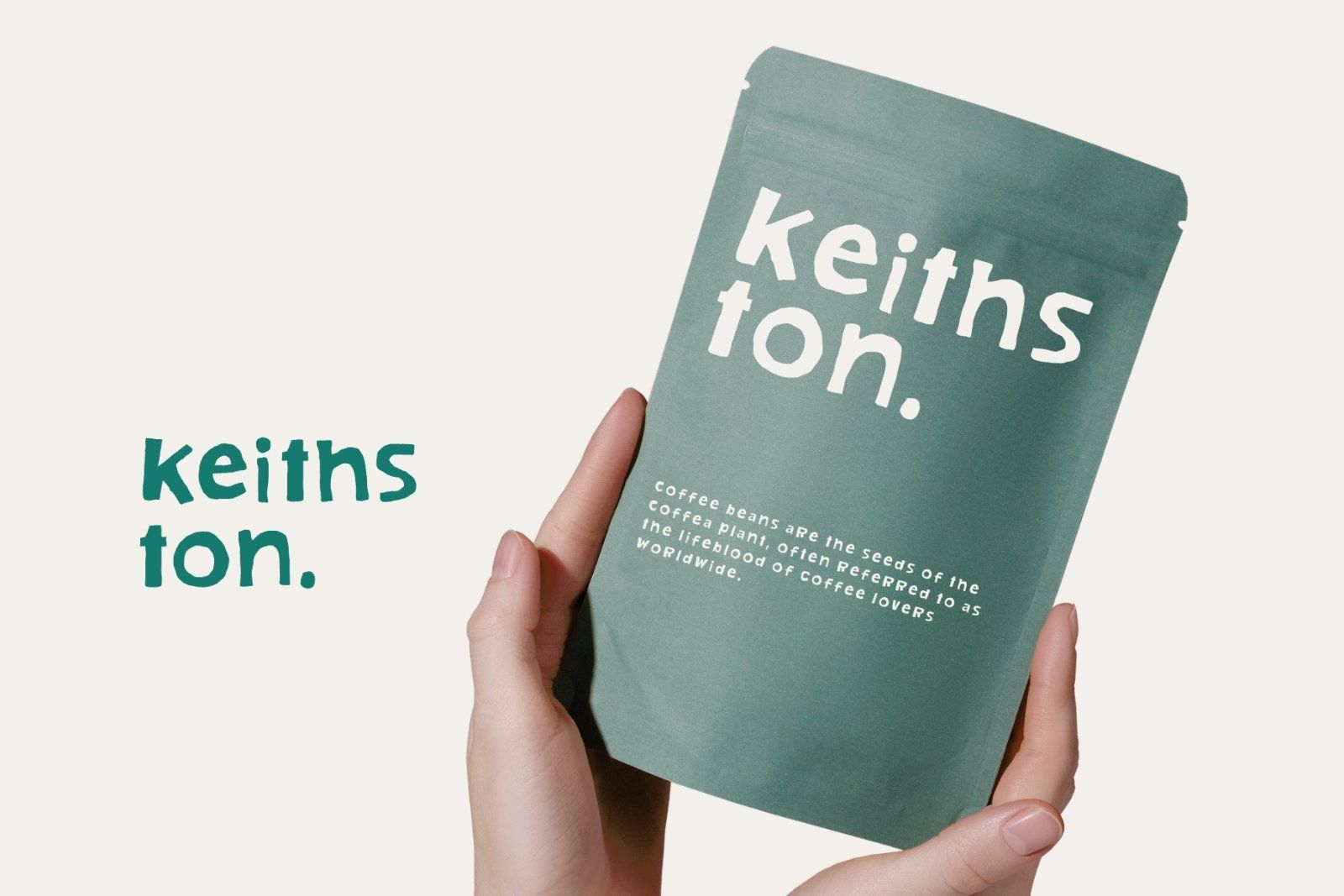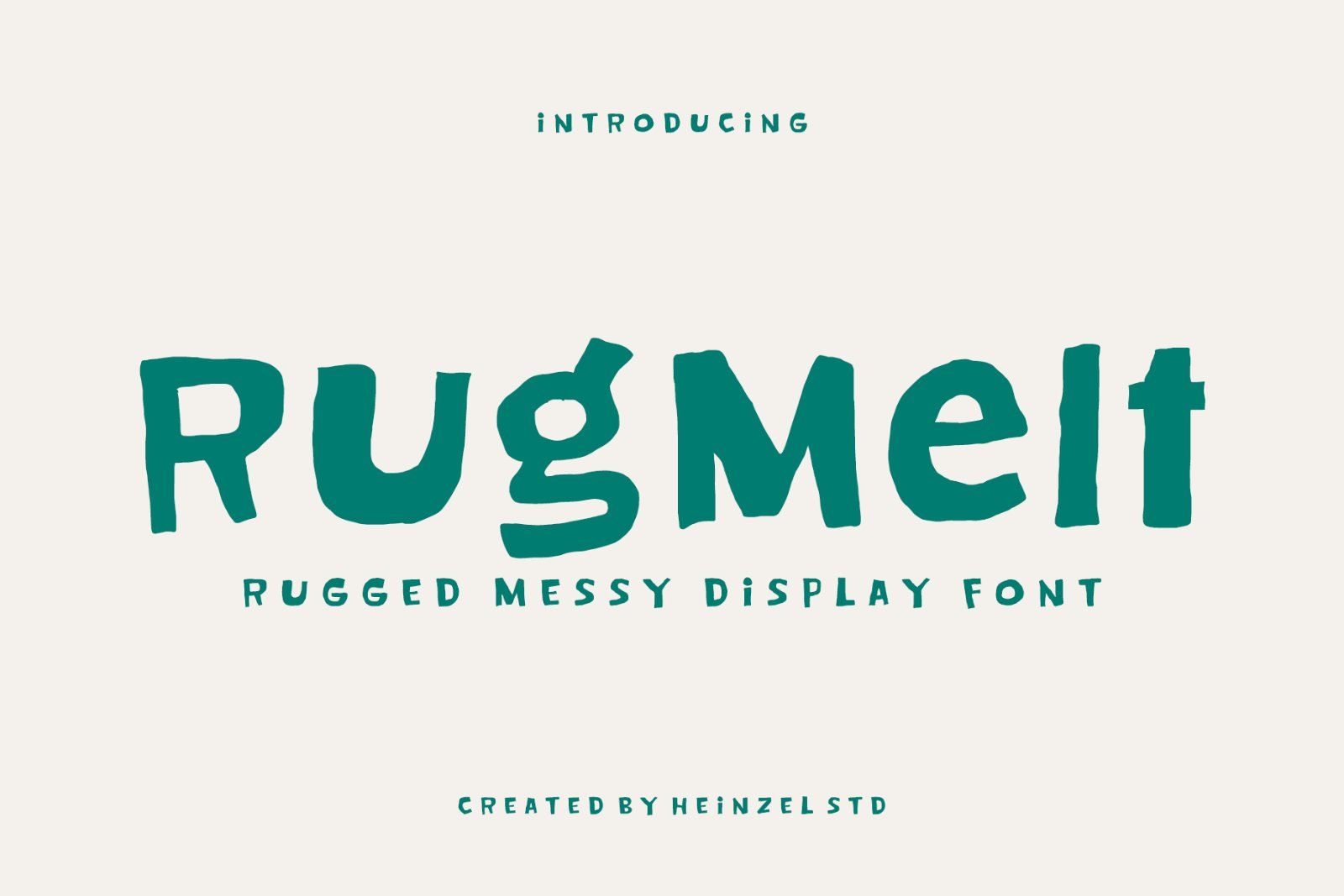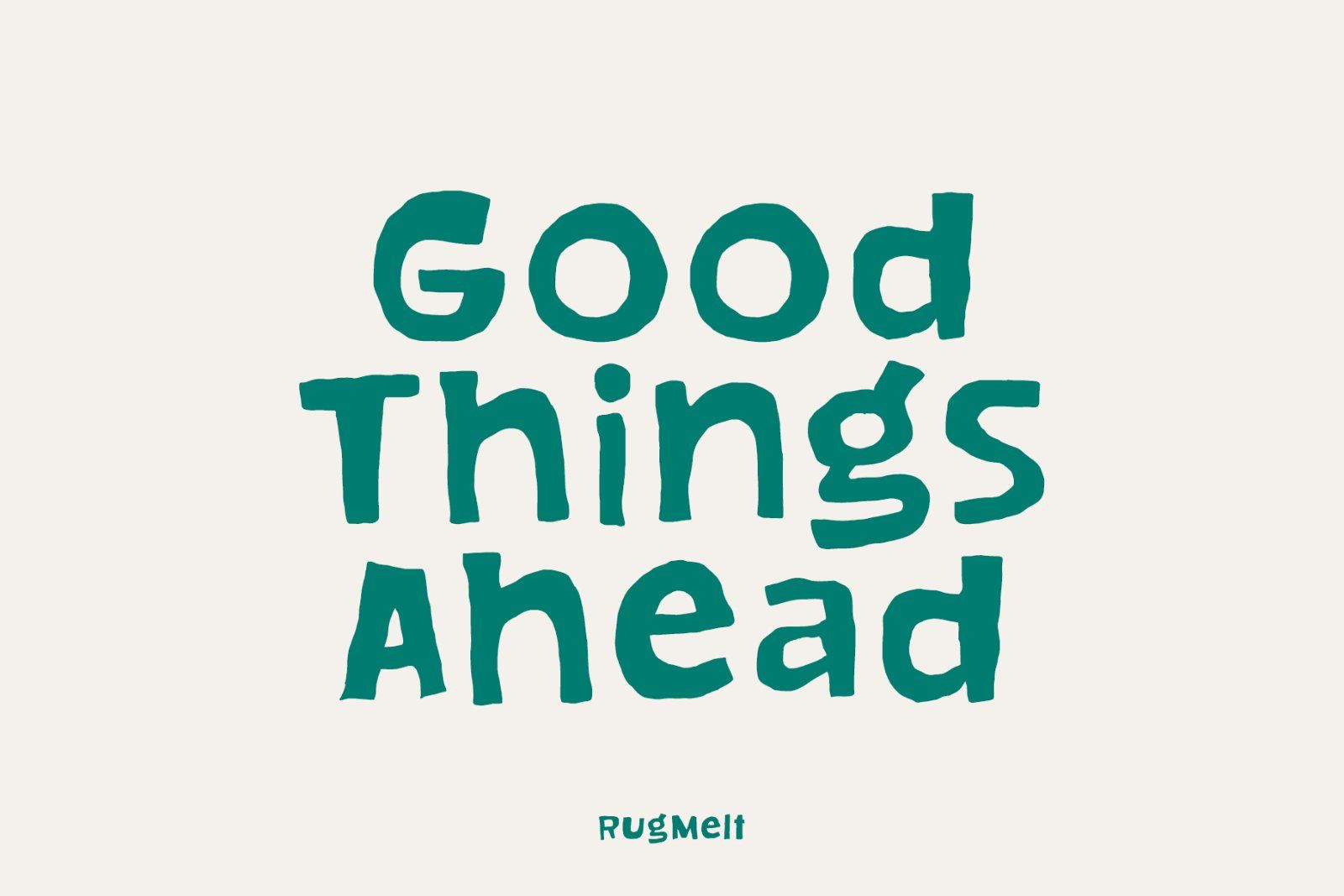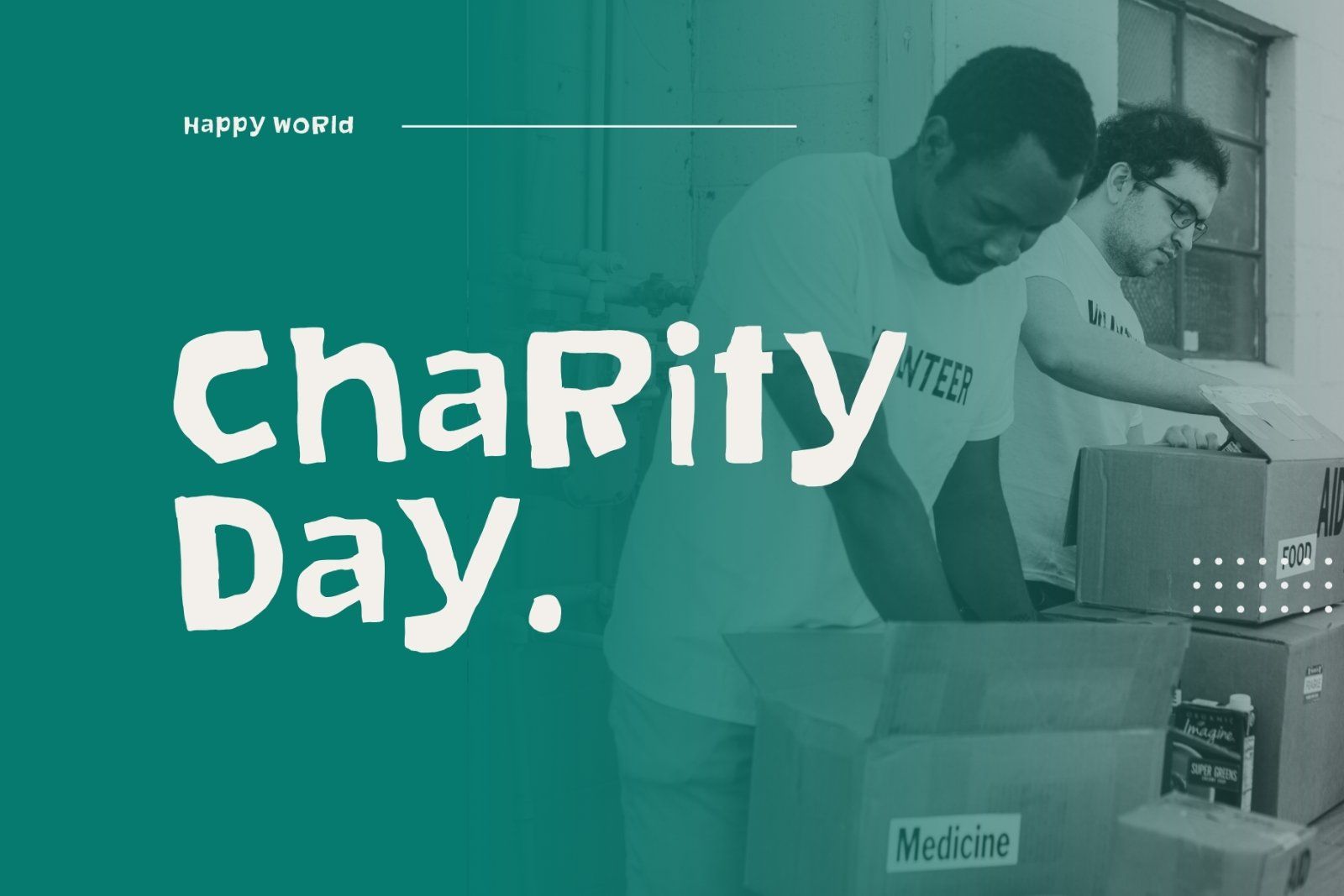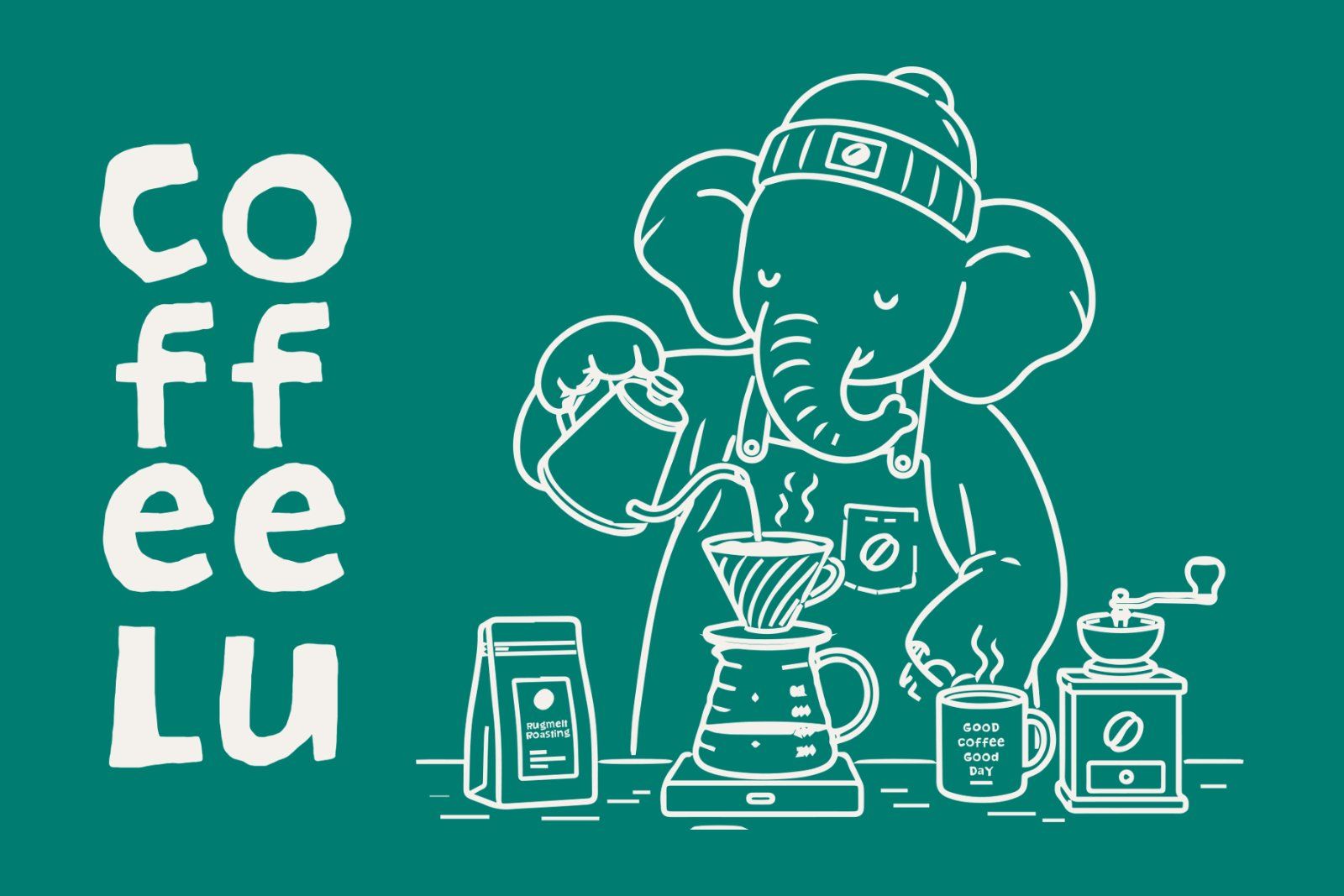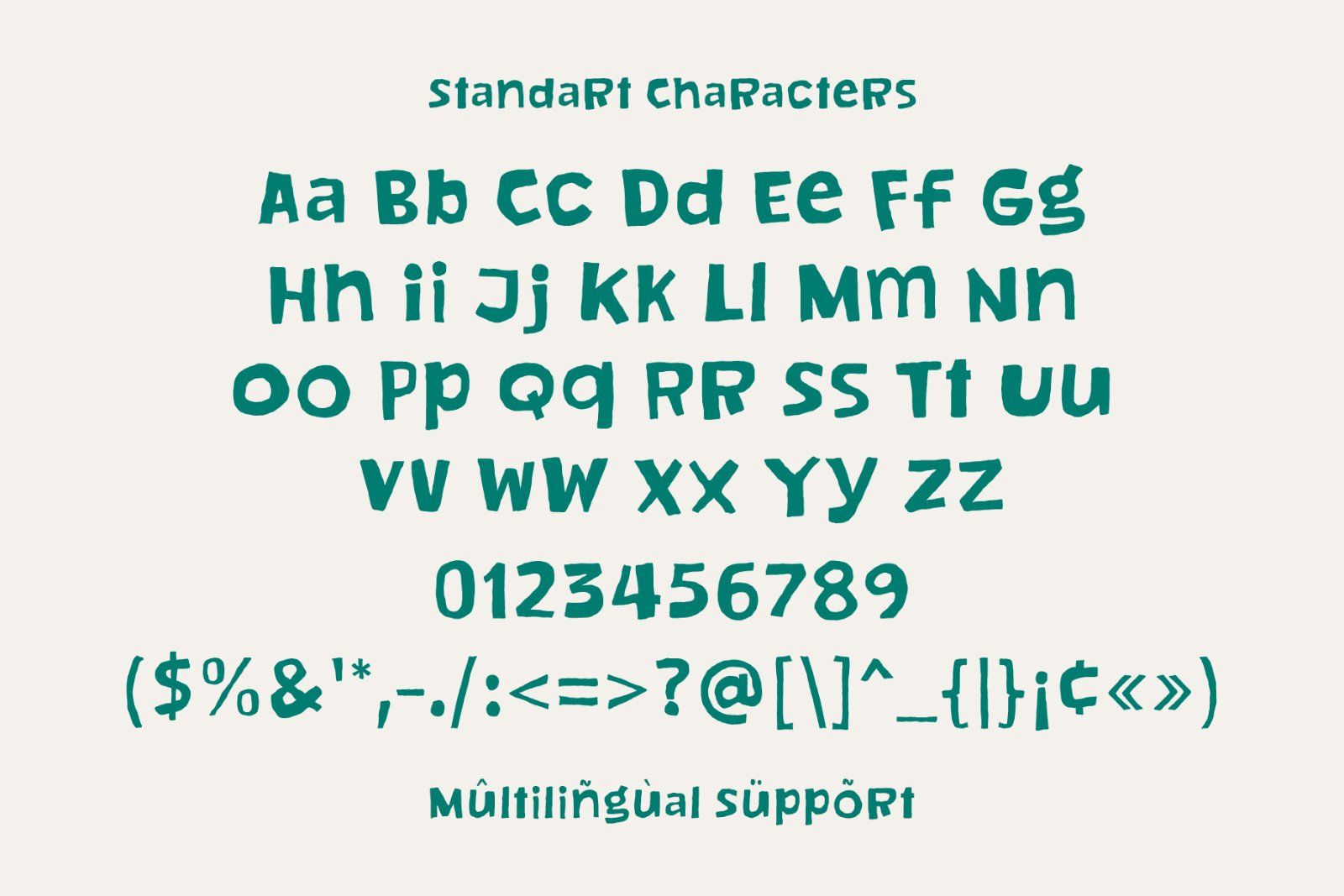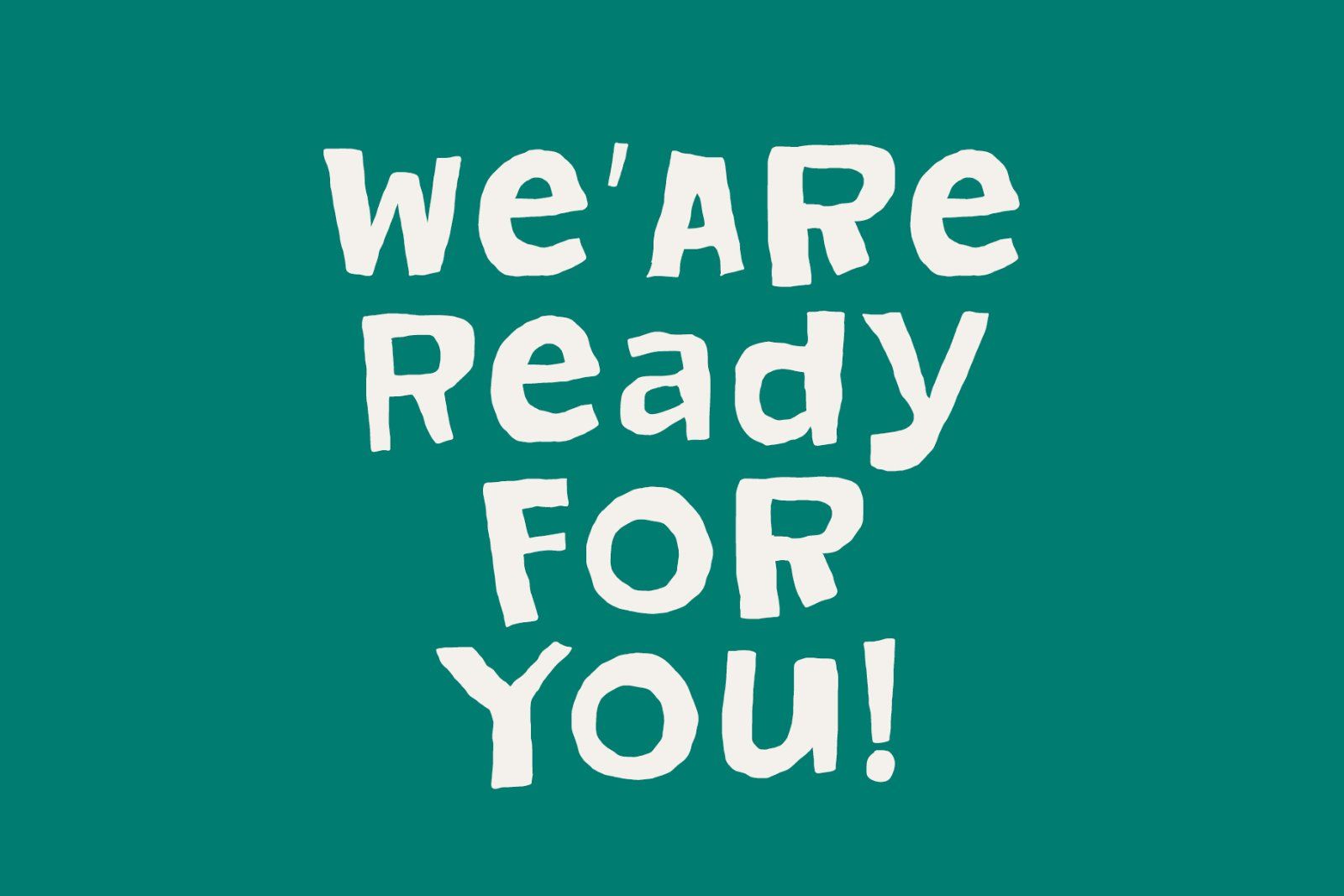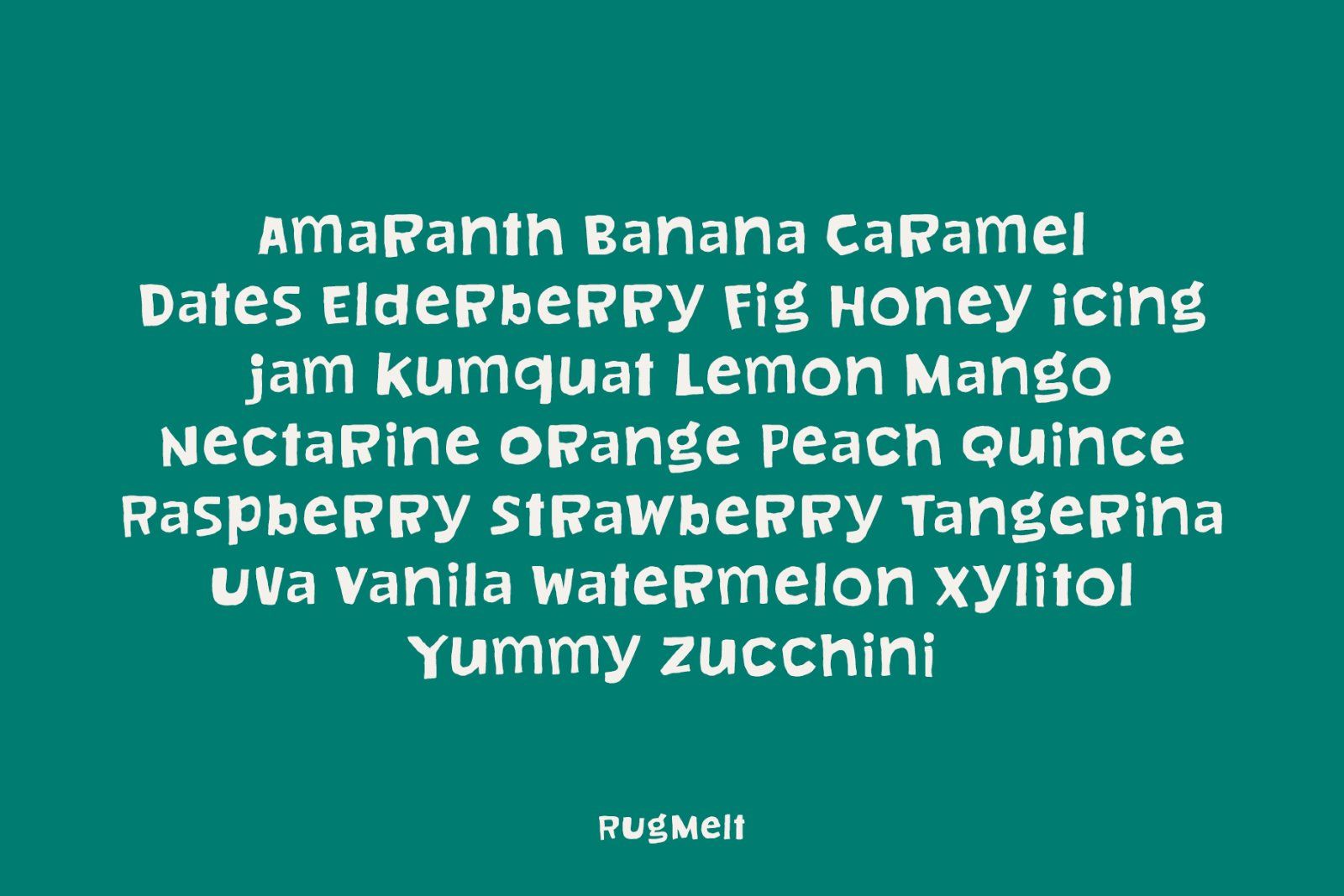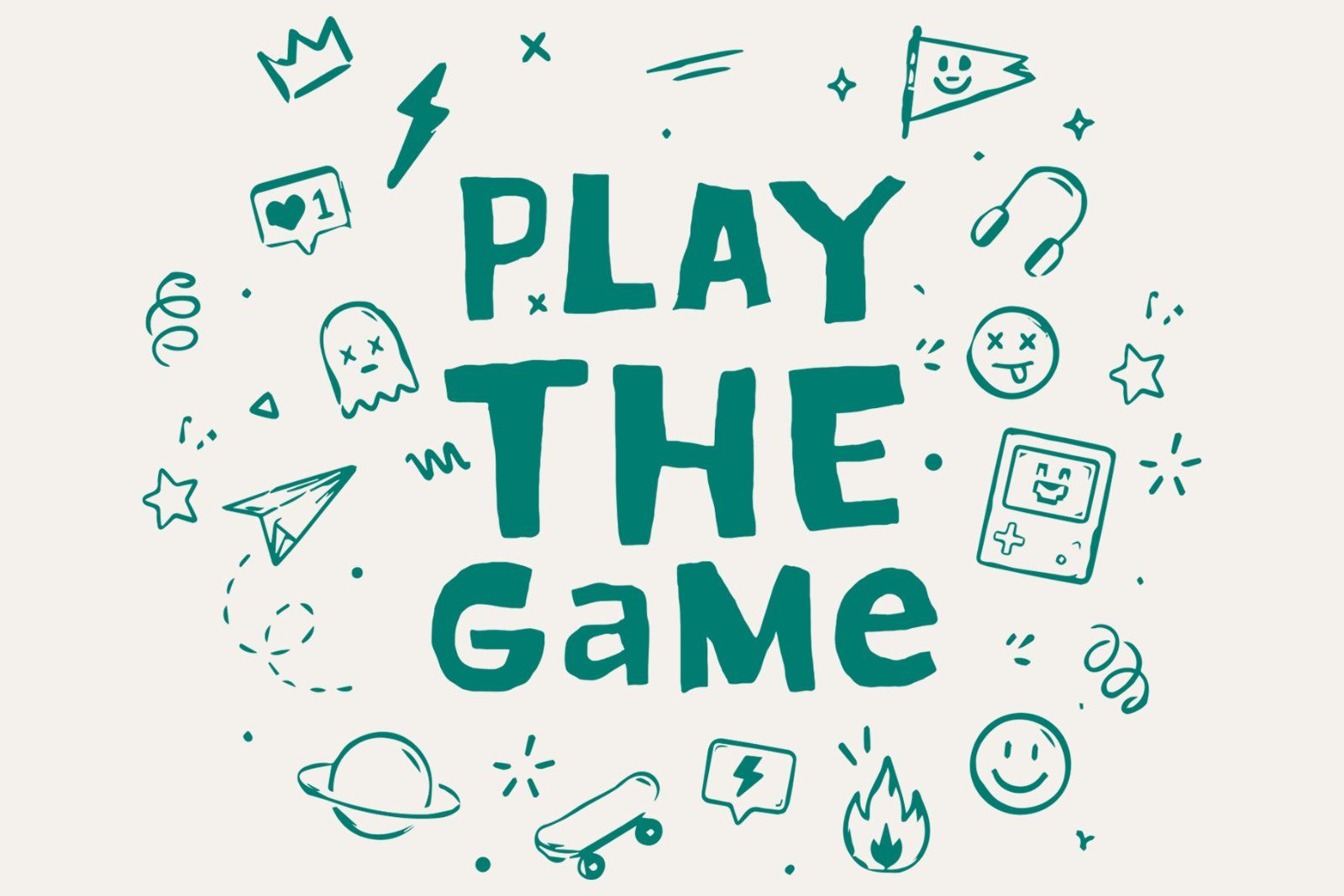
Rugmelt is a bold rugged display font with a messy handcrafted style designed to bring raw energy and playful character into your creative projects. Inspired by hand-painted lettering and imperfect organic shapes, this font delivers a strong visual impact with its chunky forms, uneven edges, and artistic personality. Perfect for posters, streetwear branding, packaging, album covers, logos, social media graphics, children’s designs, and bold editorial layouts, Rugmelt creates an expressive and eye-catching look instantly.
Its rough handmade appearance gives every design a unique and authentic feel while remaining highly readable. Whether you are creating retro-inspired artwork, modern grunge branding, or fun creative typography, Rugmelt adds a distinctive touch that stands out in both digital and print media.
Rugmelt is ideal for designers looking for a rugged display font with a bold messy aesthetic, playful typography, and handcrafted charm.